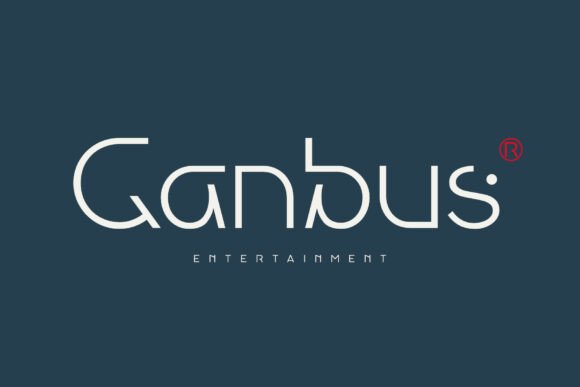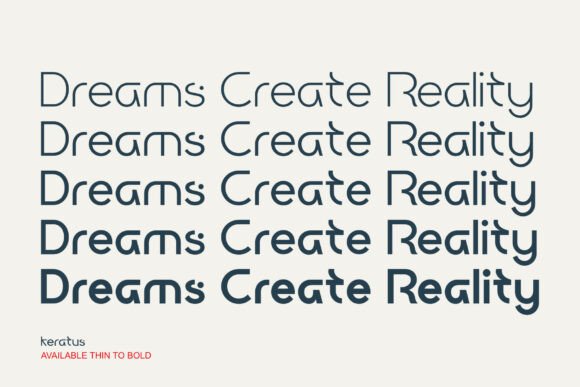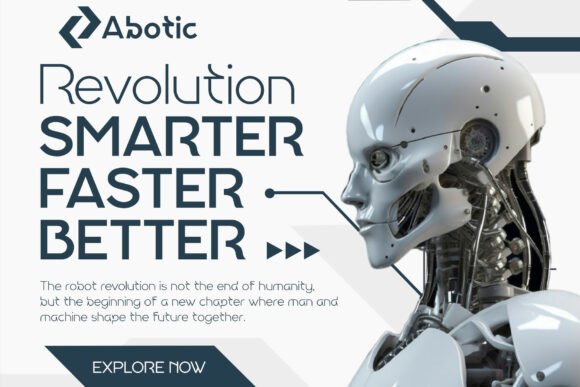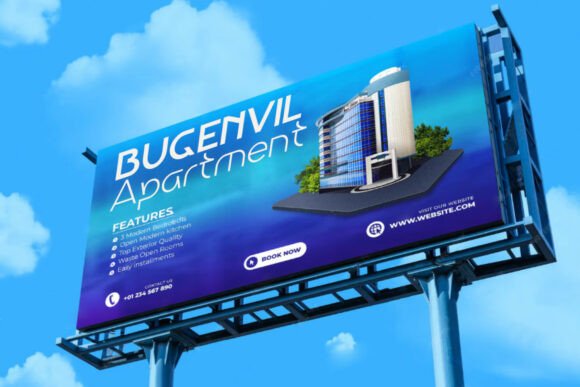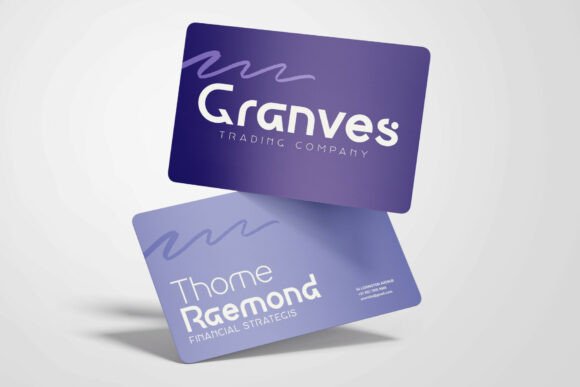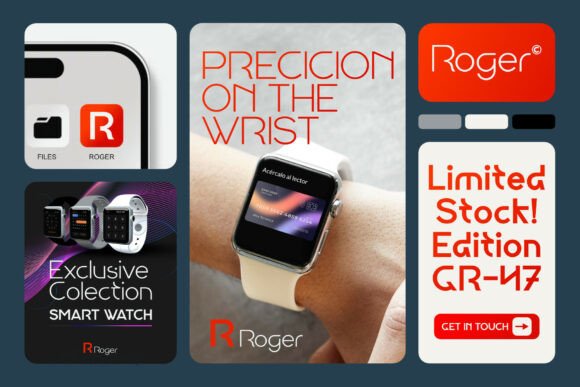
Introduction to Keratus Font
Keratus – Modern Sans Serif Logo Font Keratus is a modern sans-serif typeface that blends minimalist elegance with clean geometric shapes.
With balanced proportions and refined details, it delivers a professional, innovative, and dynamic look perfect for branding, editorial work, and digital design Available in multiple weights with complete OpenType features, Keratus offers high versatility while maintaining excellent readability.